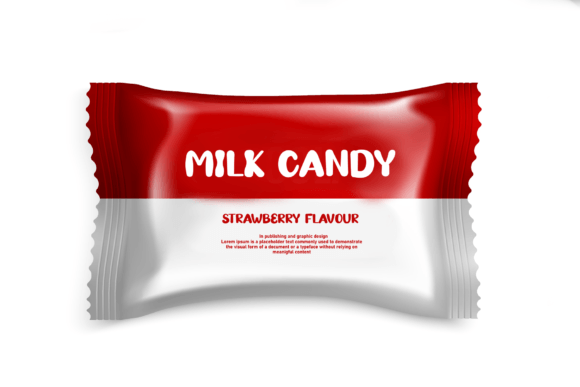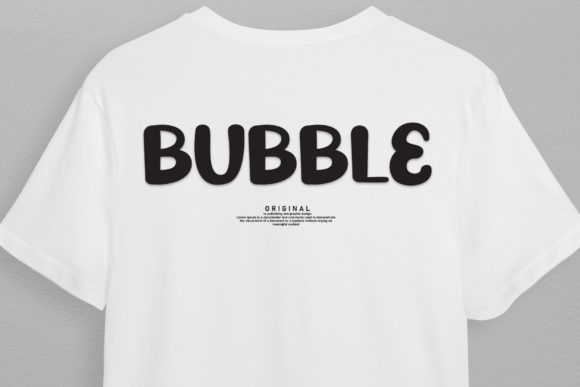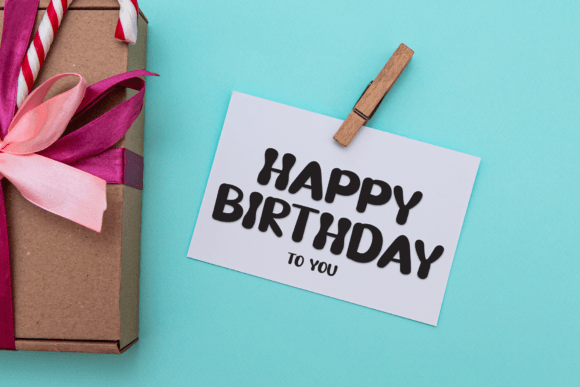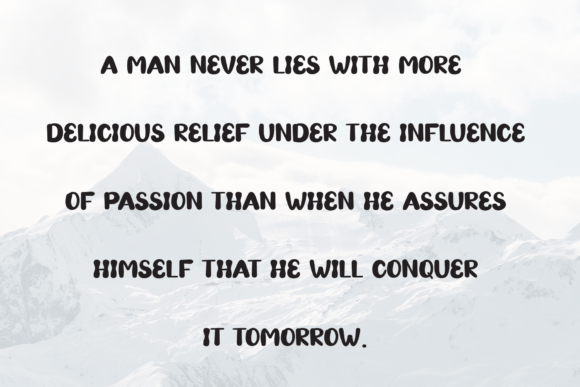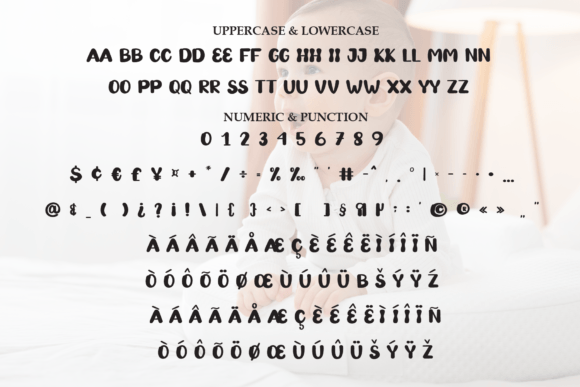
Baby Boy Font: The Sweet and Friendly Handwritten Font for Your Designs
Are you a designer or crafter looking for a font that can add a lovely touch to your wedding invitations, cards, or other designs? Look no further than the Baby Boy font! This sweet and friendly handwritten font is perfect for creating beautiful and eye-catching designs that will leave a lasting impression.
What is Baby Boy Font?
Features of Baby Boy Font
The Baby Boy font has several features that make it an ideal choice for designers and crafters. Some of its key features include:
- Cute and Friendly Design: The Baby Boy font has a sweet and friendly design that is perfect for creating designs that are meant to be cute and endearing.
- Versatile: The font is versatile and can be used for a variety of design projects, including wedding invitations, cards, and other designs.
- Handwritten Look: The font has a handwritten look that gives it a personal and unique touch.
- Easy to Read: The font is easy to read, making it perfect for designs that require a clear and legible text.
Uses of Baby Boy Font
The Baby Boy font can be used for a variety of design projects, including:
- Wedding Invitations: The font is perfect for creating beautiful and elegant wedding invitations that will set the tone for the big day.
- Cards: The font can be used to create cute and personalized cards for special occasions, such as birthdays, anniversaries, and holidays.
- Stationery: The font can be used to create custom stationery, including notebooks, journals, and letterheads.
- Digital Designs: The font can be used for digital designs, including social media graphics, blog posts, and website headers.
Why Choose Baby Boy Font?
There are several reasons why you should choose the Baby Boy font for your design projects. Some of the reasons include:
- Unique Design: The font has a unique and distinctive design that will set your designs apart from others.
- High-Quality: The font is high-quality and is designed to look great on any device or platform.
Tips for Using Baby Boy Font
Here are some tips for using the Baby Boy font in your design projects:
- Use it for Headings: The font is perfect for headings and titles, as it adds a touch of elegance and sophistication.
- Pair it with Other Fonts: The font can be paired with other fonts to create a unique and interesting design.
- Use it for Body Text: The font can be used for body text, especially for designs that require a more personal and friendly touch.
- Experiment with Colors: The font can be used with different colors to create a unique and eye-catching design.
In conclusion, the Baby Boy font is a sweet and friendly handwritten font that is perfect for designers and crafters who want to add a lovely touch to their designs. With its cute and versatile design, the font is ideal for creating beautiful and eye-catching designs that will leave a lasting impression. Whether you’re creating wedding invitations, cards, or other designs, the Baby Boy font is a great choice.